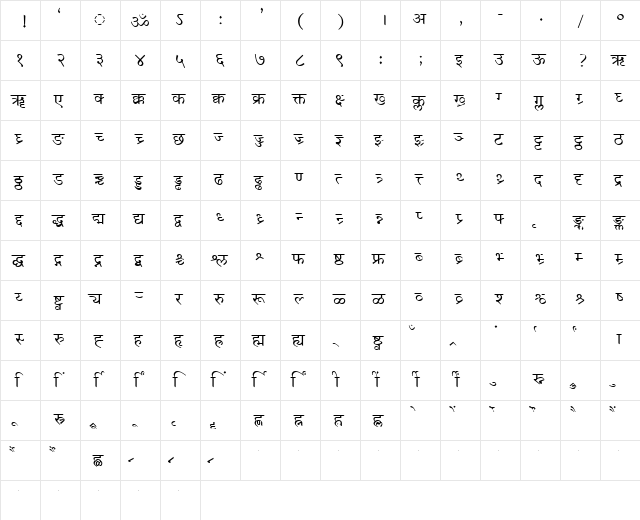
SD-TTSurekh Normal
Design Context for SD-TTSurekh Typeface
SD-TTSurekh takes a measured approach to typography — its balanced proportions and neutral character make it a reliable workhorse for both digital and print work.